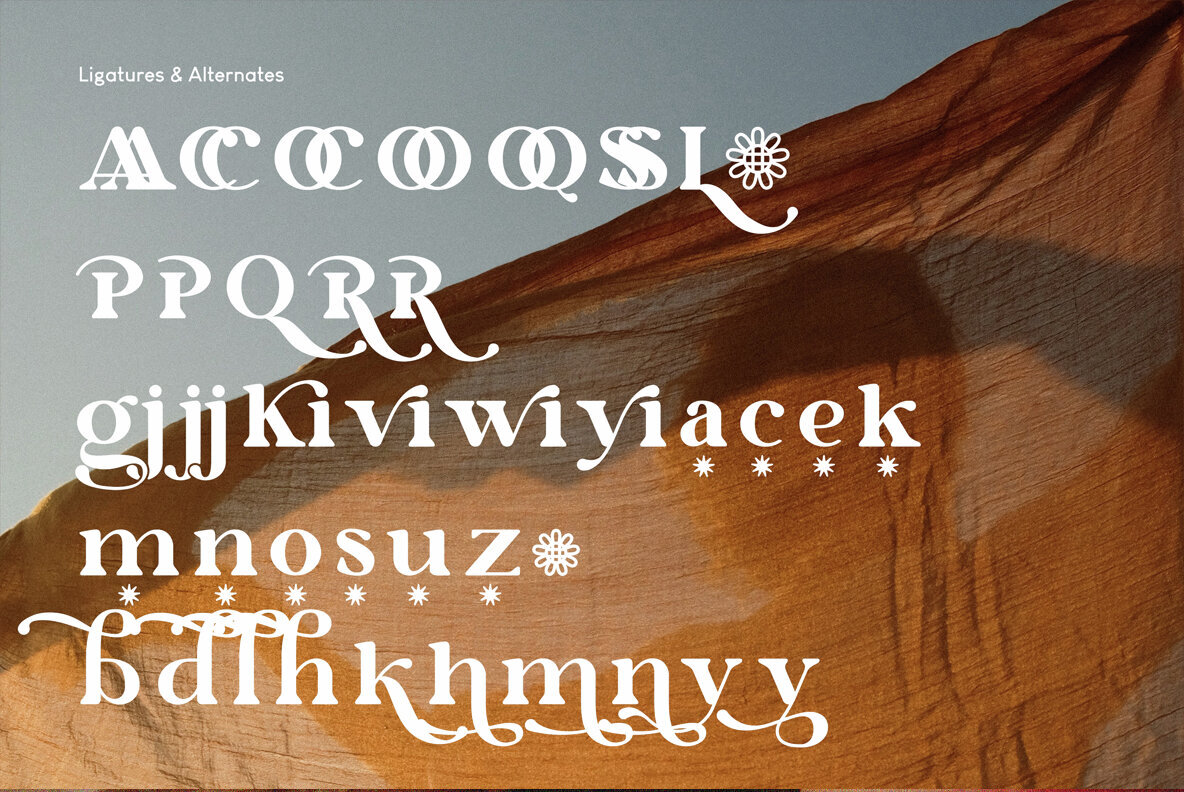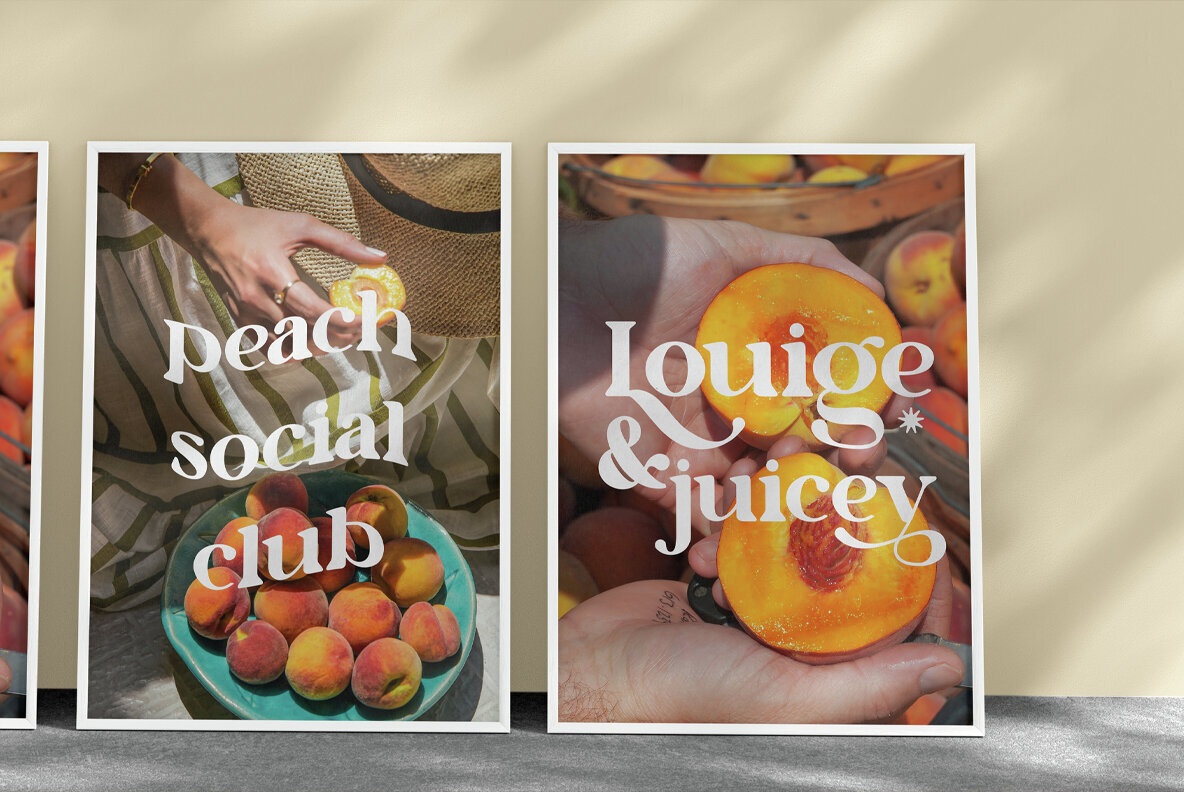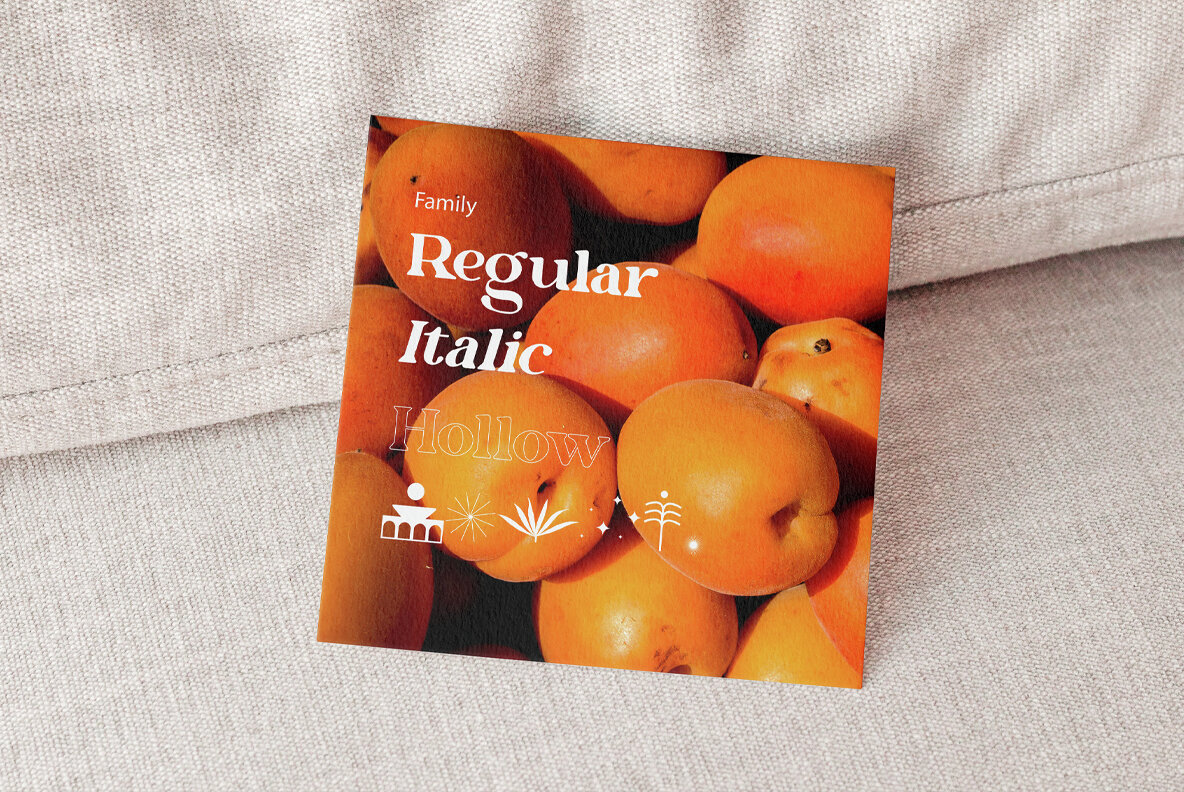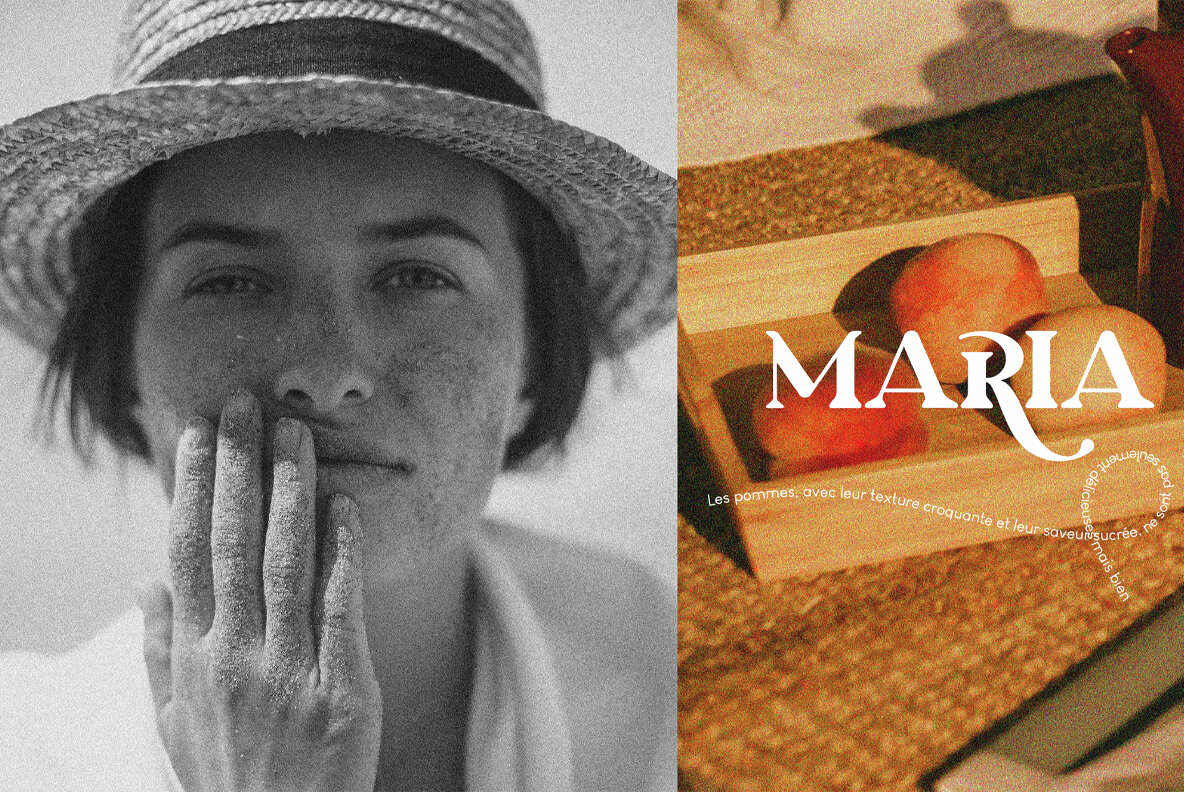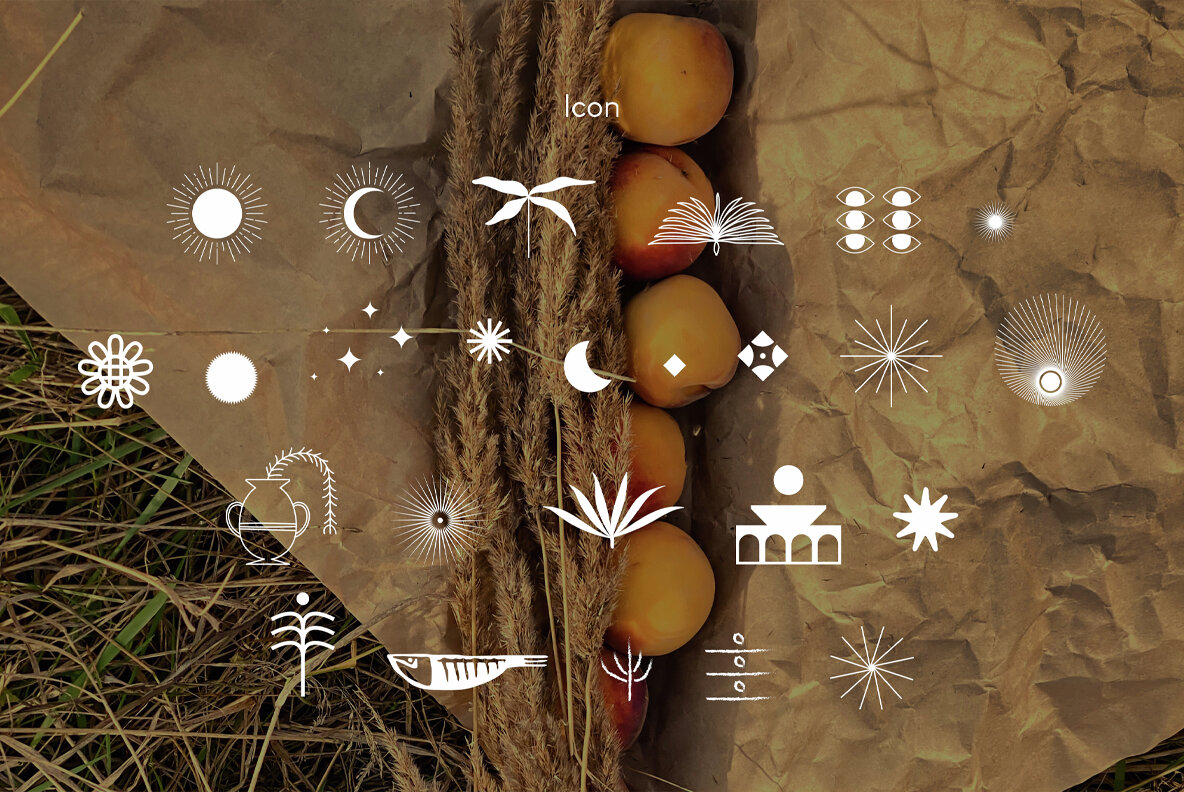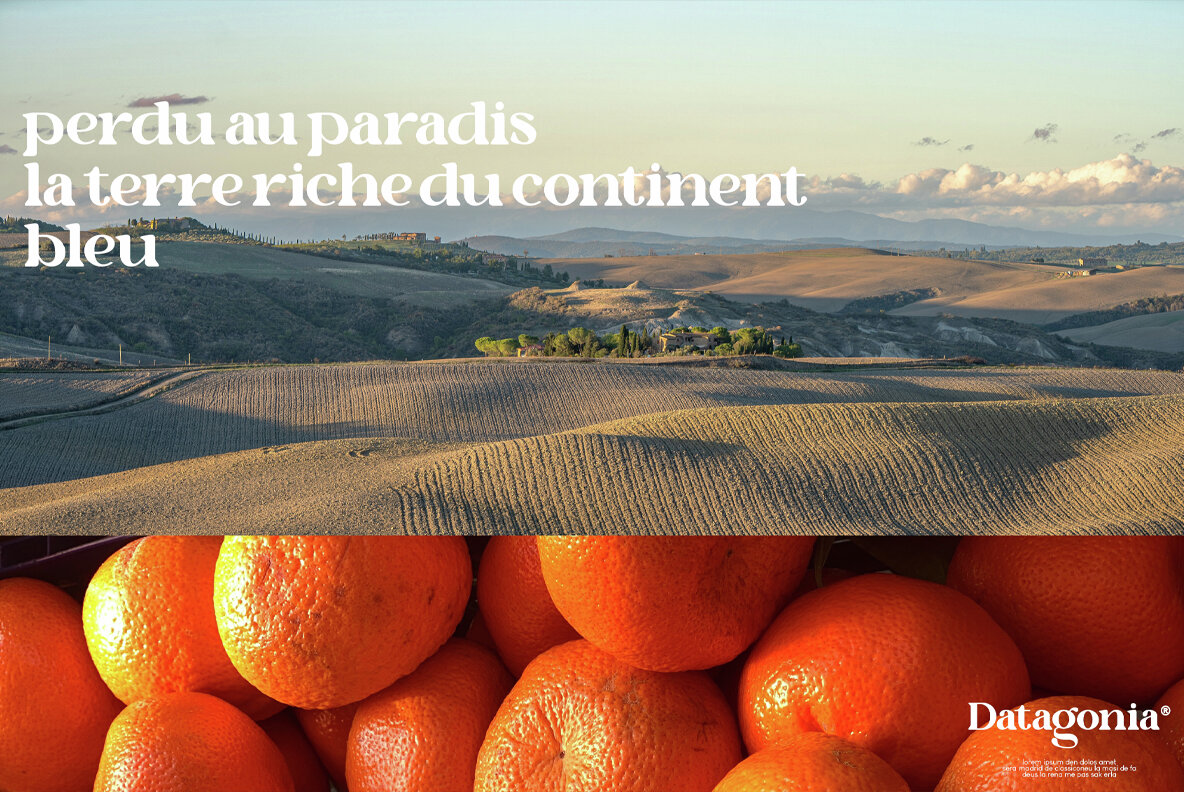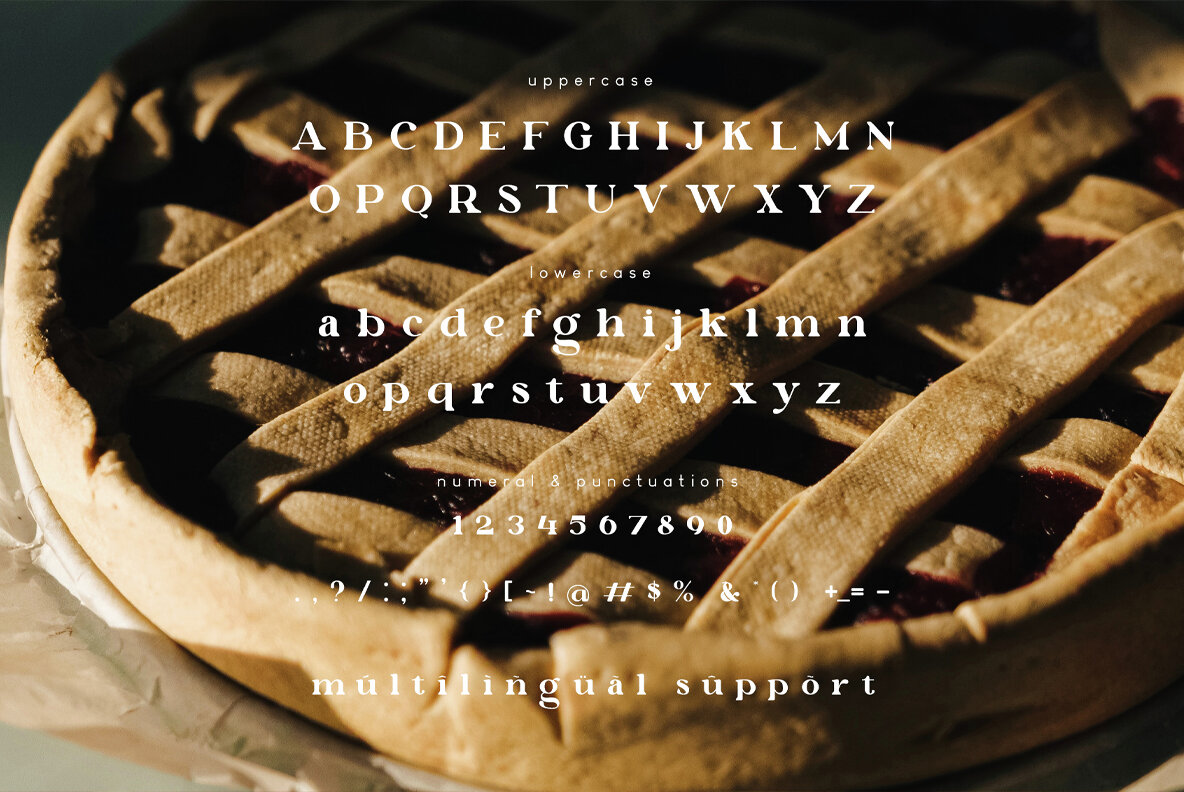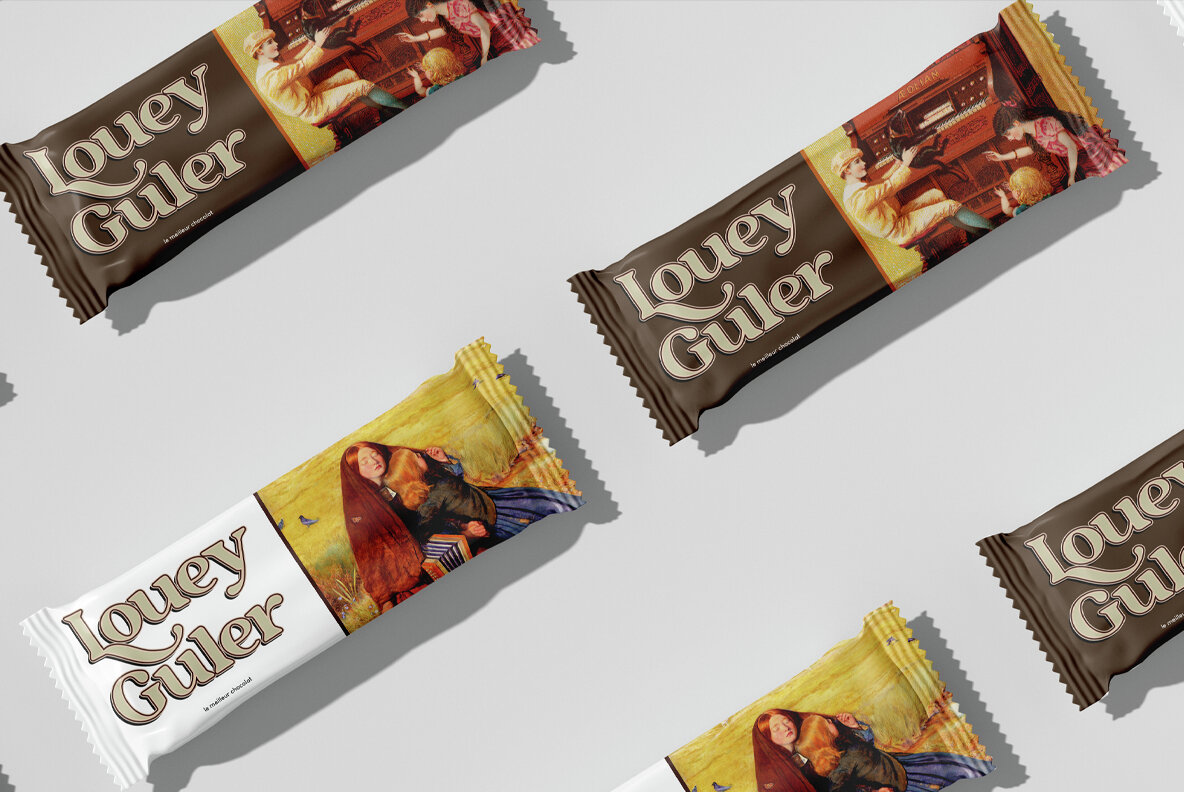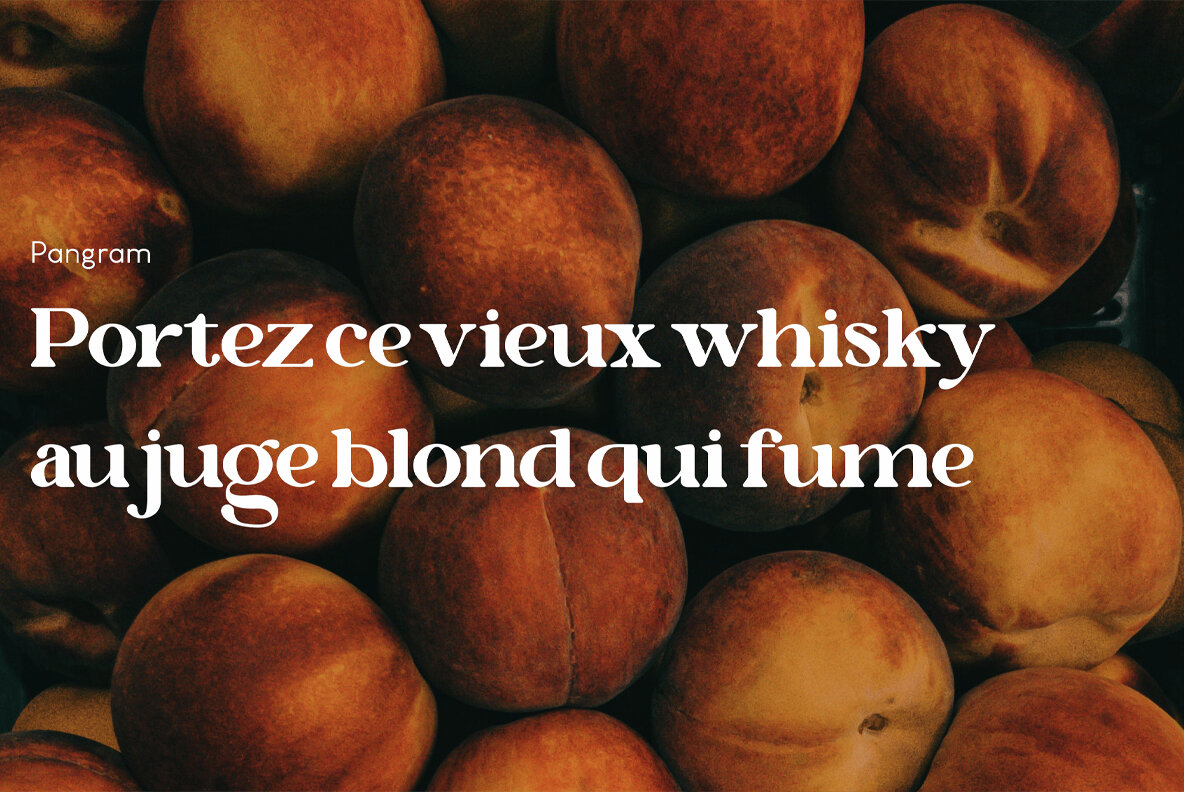
Royale Caikes Font
Royale Caikes
Royale Caikes Italic
Royale Caikes Hollow
Royale Caikes Icon
Royale & Caikes, a captivating new serif font, exudes timeless elegance with its graceful curves and refined serif, making it a sophisticated choice for any design project. Combines classical elements with a modern twist, resulting in a font that is both beautiful and distinctive, perfect for creating a sense of luxury and elegant. . Complete with: